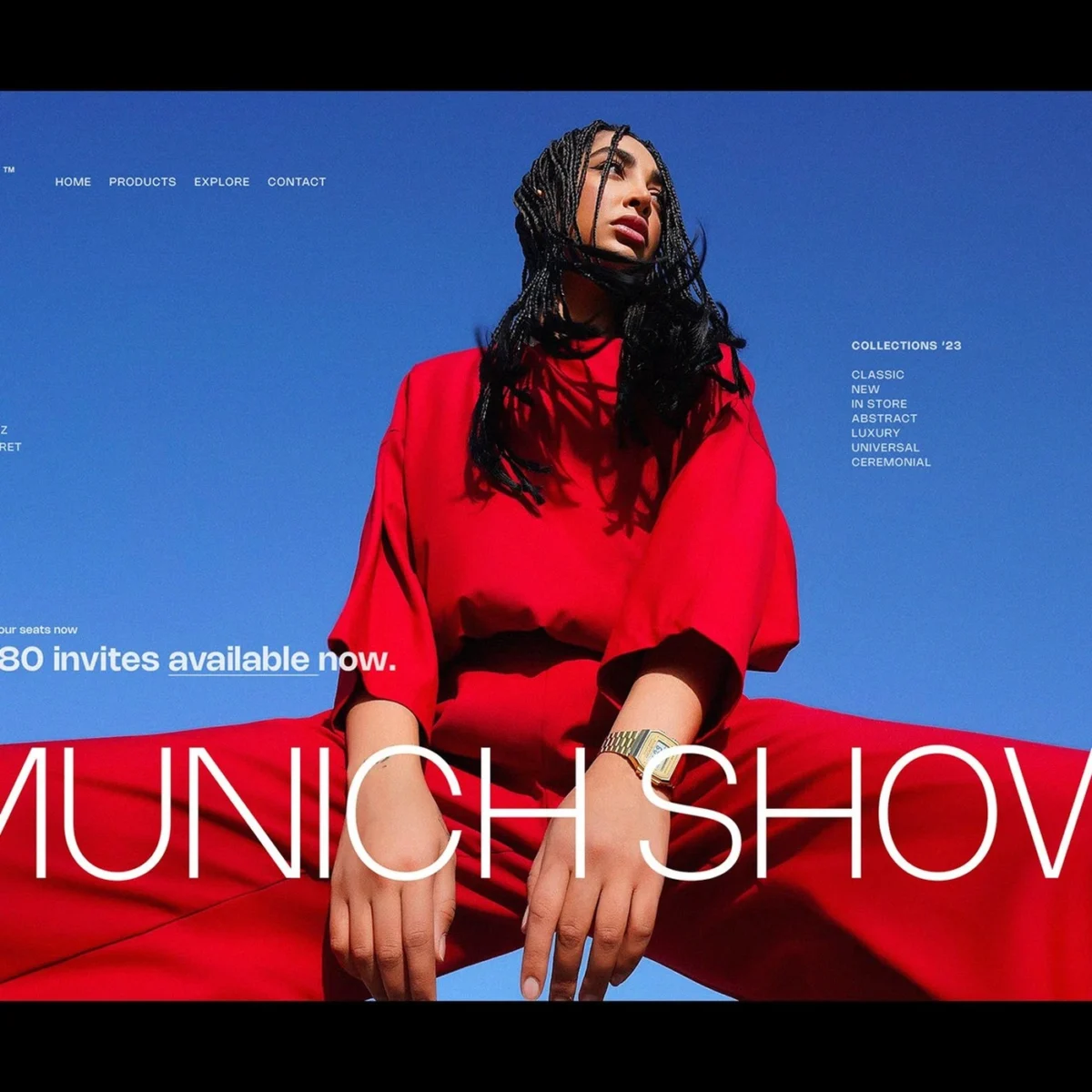
Nohemi: Rajesh Rajput Unveils a Groundbreaking Display Typeface Variable Font Redefining Modern Swiss Design Principles
Rajesh Rajput, a distinguished name in contemporary type design, has announced the official release of Nohemi, a revolutionary display typeface variable font poised to set new standards in digital and print typography. Launched on July 17, 2026, Nohemi masterfully blends the clean, rigorous principles of classic Swiss Modernism with the dynamic flexibility demanded by twenty-first-century media landscapes. This innovative font system offers designers an unparalleled tool for crafting visually striking and functionally robust layouts, promising to streamline complex typographic challenges across a multitude of platforms.
Display Typeface Variable Font: Nohemi
The core essence of Nohemi lies in its unwavering commitment to geometric purity and extreme restraint. Rajput’s design philosophy for Nohemi is deeply rooted in the modular grid systems that defined Swiss graphic design, ensuring every letterform adheres to precise mathematical relationships. This meticulous approach manifests in large, intentional negative spaces that establish a sharp, compelling visual rhythm, guiding the eye with effortless clarity. Each outline is engineered to align perfectly, creating a sense of impeccable order and structural integrity. The technical precision embedded within Nohemi generates a strong tactile contrast, allowing the type to command full focus without the need for superfluous embellishment. The design consciously avoids unnecessary decorative lines, instead utilizing flat geometric curves and meticulously balanced spacing rules to achieve compositional harmony. This inherent discipline empowers designers to organize even the most complex information with ease, as the underlying grid provides an intuitive framework for page navigation. A high-contrast structure further ensures optimal readability across diverse applications, with every glyph boasting precise dimensions and consistent spacing maintained cohesively across all sizes. The resulting shapes exude a solid, structured presence, anchoring the design layout and providing a robust foundation for impactful headlines and sophisticated branding.
The Genesis of Nohemi: A Modernist Revival for the Digital Age
The development of Nohemi represents a thoughtful evolution of design principles that have long been revered for their timeless efficacy. To understand Nohemi’s significance, one must consider its historical lineage. Swiss Modernism, which emerged in the mid-20th century, championed clarity, objectivity, and universality through minimalist aesthetics and grid-based layouts. Pioneering designers like Max Miedinger with Helvetica, Adrian Frutiger with Univers, and Josef Müller-Brockmann with his iconic poster designs, established a global language of clean, sans-serif typography that prioritized function over ornamentation. Their work emphasized legibility, logical structure, and an almost architectural approach to graphic communication.
Display Typeface Variable Font: Nohemi
Rajput’s Nohemi does not merely imitate these classics; it reinterprets and reinvigorates them for a new era. While maintaining the core tenets of Swiss style – the pursuit of clarity, the reliance on grids, and the absence of superfluous detail – Nohemi injects a contemporary sensibility. Its geometric precision and controlled negative space are direct homages to this heritage, yet its variable font capabilities push it firmly into the future. Rajput’s inferred design process likely involved extensive research into historical type specimens, followed by iterative sketching and digital prototyping. The challenge was not just to create beautiful letterforms, but to engineer them within a flexible, scalable system that could adapt seamlessly across an infinite spectrum of weights and potentially other axes. This process would have demanded a deep understanding of both aesthetic principles and advanced typographic technology, ensuring that the integrity of the design remained consistent from its lightest to its heaviest manifestations.
Unleashing Dynamic Versatility: The Variable Font Advantage
One of Nohemi’s most compelling features is its implementation as a variable font. This technology, a significant advancement in digital typography, allows a single font file to contain an entire range of design variations (such as weight, width, or slant) along continuous axes, rather than requiring separate font files for each style. This innovation offers unprecedented flexibility, reducing file sizes, enhancing performance, and opening up new creative possibilities for responsive design and animation.
Display Typeface Variable Font: Nohemi
Nohemi leverages this technology to its fullest potential, featuring nine distinct weights along its variable axis. This extensive range means the character set scales smoothly and effectively, proving equally adept for monumental headers that demand immediate attention as it is for minute captions requiring utmost legibility. The lighter weights of Nohemi evoke a clean, airy sophistication, perfect for conveying understated elegance or establishing subtle hierarchies. Conversely, the heavier weights project a bold, almost architectural force, ideal for making strong statements or creating impactful focal points. The transition between these styles is engineered to be perfectly smooth and continuous, allowing designers to select any intermediate weight along the spectrum, thereby achieving an exact typographic expression previously unattainable without manual intervention or a vast library of individual font files.
This dynamic adaptability makes Nohemi exceptionally versatile. The font thrives in traditional applications like physical posters, where its high-contrast structure and clean lines ensure maximum impact from a distance. Simultaneously, it excels in digital applications, maintaining its high legibility on mobile screens and across various display resolutions. Crucially, contrast adjustments within the variable font framework meticulously protect the internal space of each letter, ensuring that readability is never compromised, regardless of the chosen weight or context. This comprehensive family provides an excellent typographic scaling solution, effectively meeting all contemporary media needs, from web interfaces and app designs to sophisticated editorial layouts and expansive digital campaigns. The variable font format also empowers designers to experiment with responsive typography, where the font’s characteristics can subtly (or dramatically) change based on screen size, user preferences, or even interactive elements, creating truly dynamic user experiences.
Display Typeface Variable Font: Nohemi
Rajesh Rajput: Crafting Tools for Tomorrow’s Designers
Rajesh Rajput’s reputation precedes him as a designer dedicated to creating highly refined, functional tools for the creative industry. While specific details of his previous works are not provided in the original text, his approach with Nohemi strongly suggests a philosophy centered on precision, innovation, and a profound respect for typographic heritage. It can be inferred that Rajput envisions his typefaces not just as aesthetic elements, but as robust infrastructure for visual communication. His work aligns with a growing trend among leading type designers who are pushing the boundaries of technology to serve the evolving needs of digital design.
Inferred statements from Rajput regarding Nohemi would likely emphasize its dual purpose: honoring the past while shaping the future. He might articulate: "With Nohemi, my aim was to distil the timeless clarity and logical precision of Swiss modernism into a format that is inherently dynamic and responsive to today’s complex media demands. It’s about providing designers with a versatile, high-performance tool that empowers them to create sophisticated visual narratives with unparalleled control and efficiency." He would likely stress the iterative process, the countless hours spent refining curves, adjusting spacing, and ensuring the seamless functionality of the variable axes. "Every detail, from the subtle shift in a curve to the precise balance of negative space, was meticulously considered to ensure Nohemi delivers both aesthetic excellence and uncompromising legibility across every application imaginable." This commitment positions Nohemi not merely as a font, but as a testament to the enduring power of thoughtful design in a rapidly changing technological landscape.